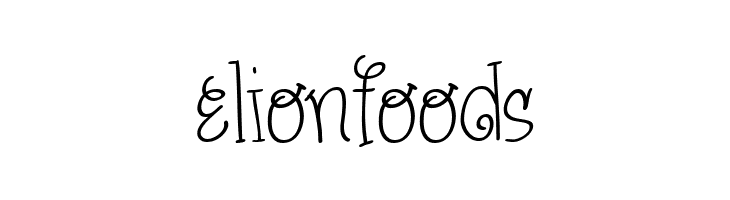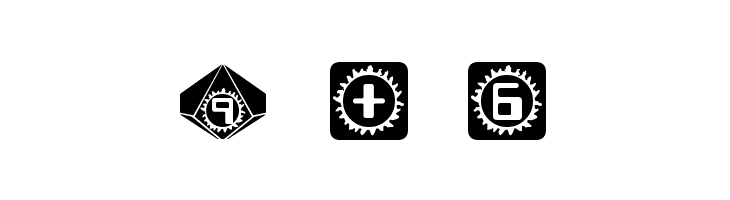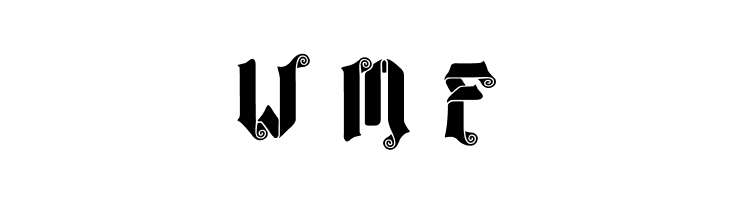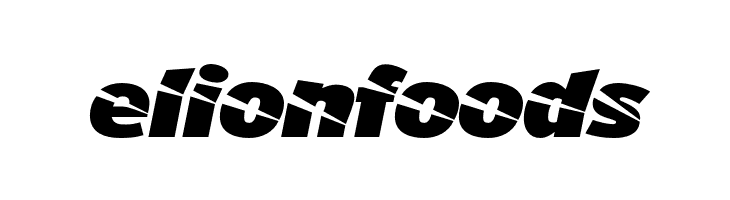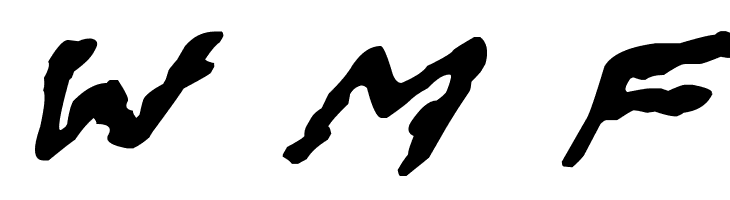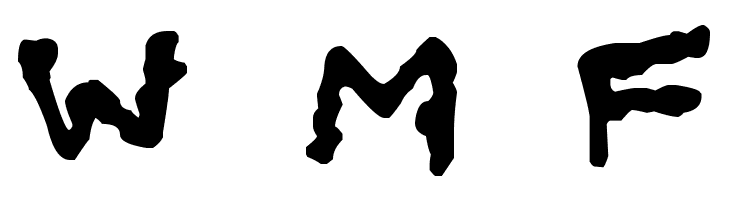
A bold, playful, and slightly condensed font with strong, angular strokes.
A bold, outlined font with a playful, comic book style.
A bold, playful font with thick, rounded characters.
A decorative font with numbers and symbols in geometric shapes with starburst patterns.
A collection of bold, thematic symbols ideal for fantasy projects.
A bold blackletter font with intricate decorative swirls.
A decorative font with characters enclosed in bold star shapes, perfect for playful designs.
A bold, circular font with geometric, modern styling.
A bold, geometric font with characters enclosed in circles, offering a playful and modern look.
A playful, wavy font with a spring-like, dynamic design.
A decorative font with star motifs and dotted patterns, offering a playful and whimsical style.
A bold, decorative font with star and stripe patterns, ideal for playful designs.
A bold, angular font with dynamic cuts for striking designs.
A bold, italic font with a textured, hand-drawn appearance.
A bold, rugged font with an organic, ink-blot appearance.